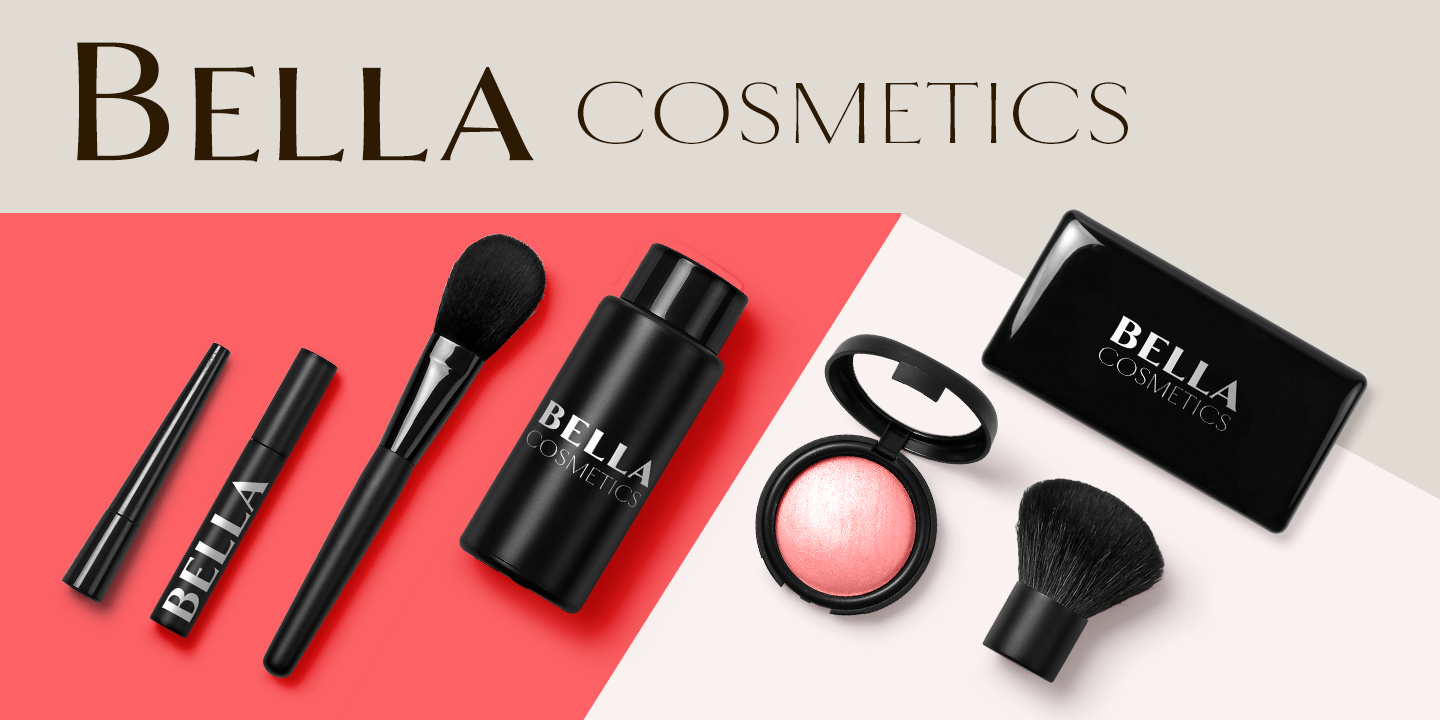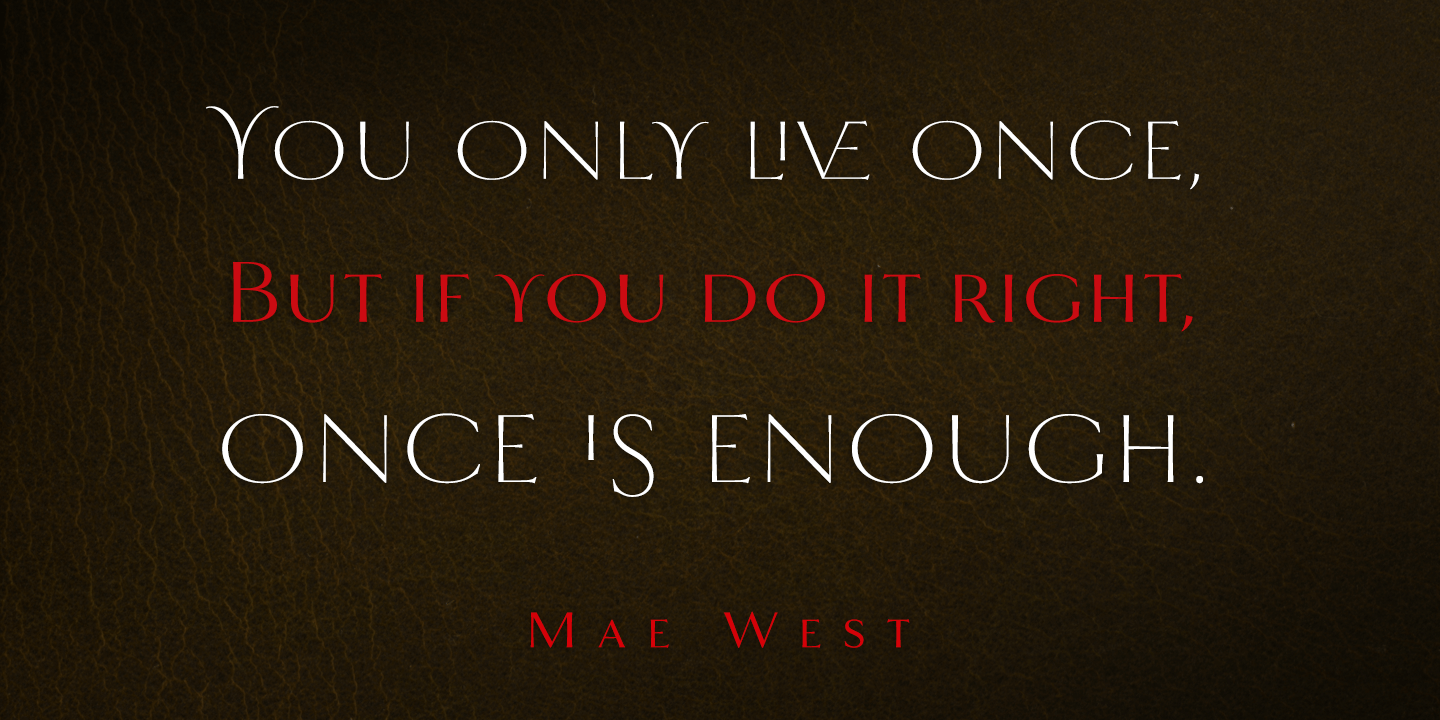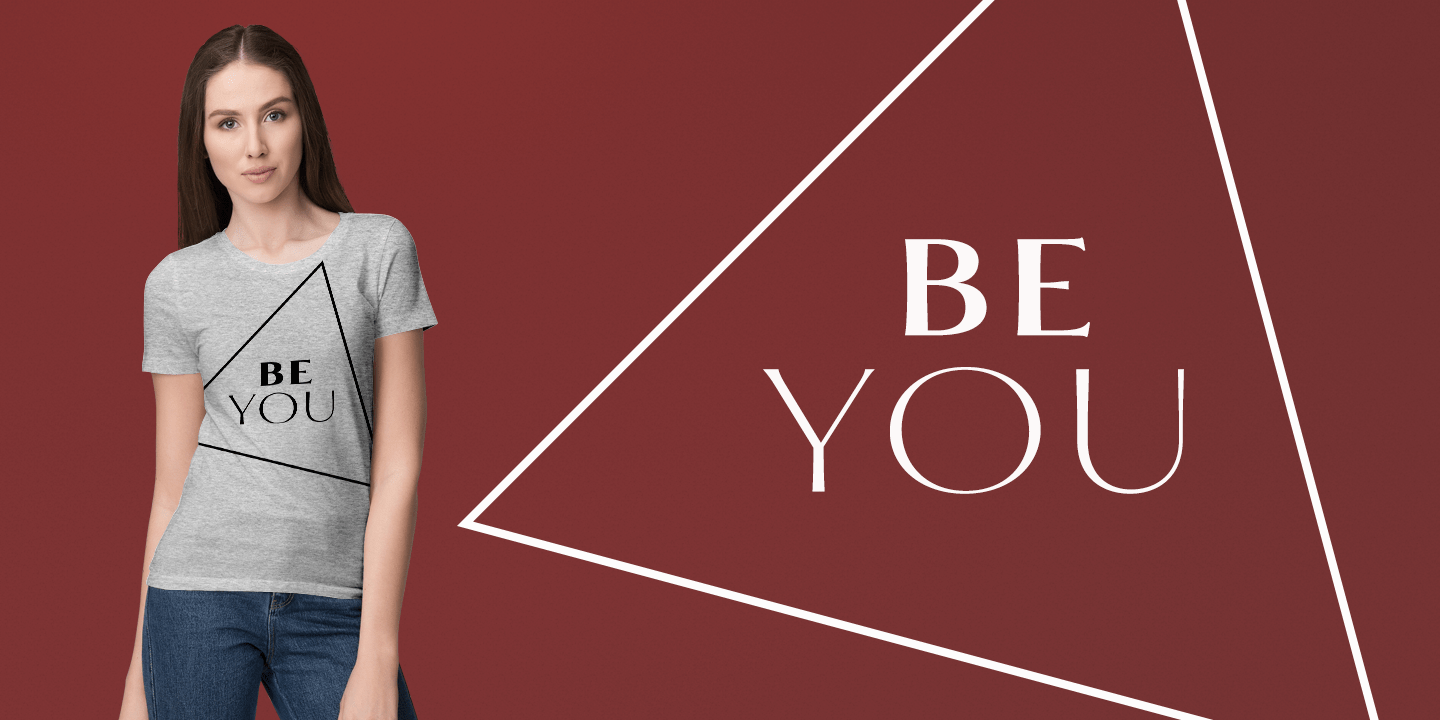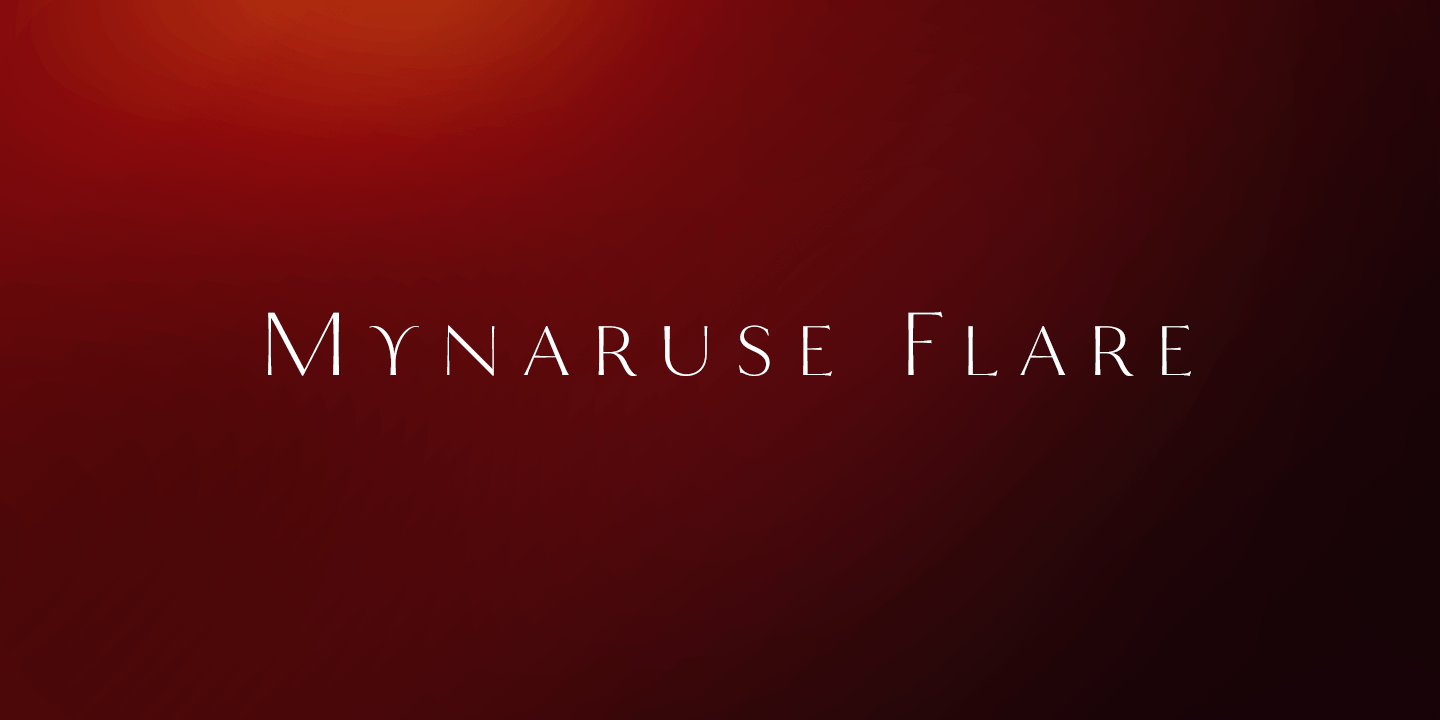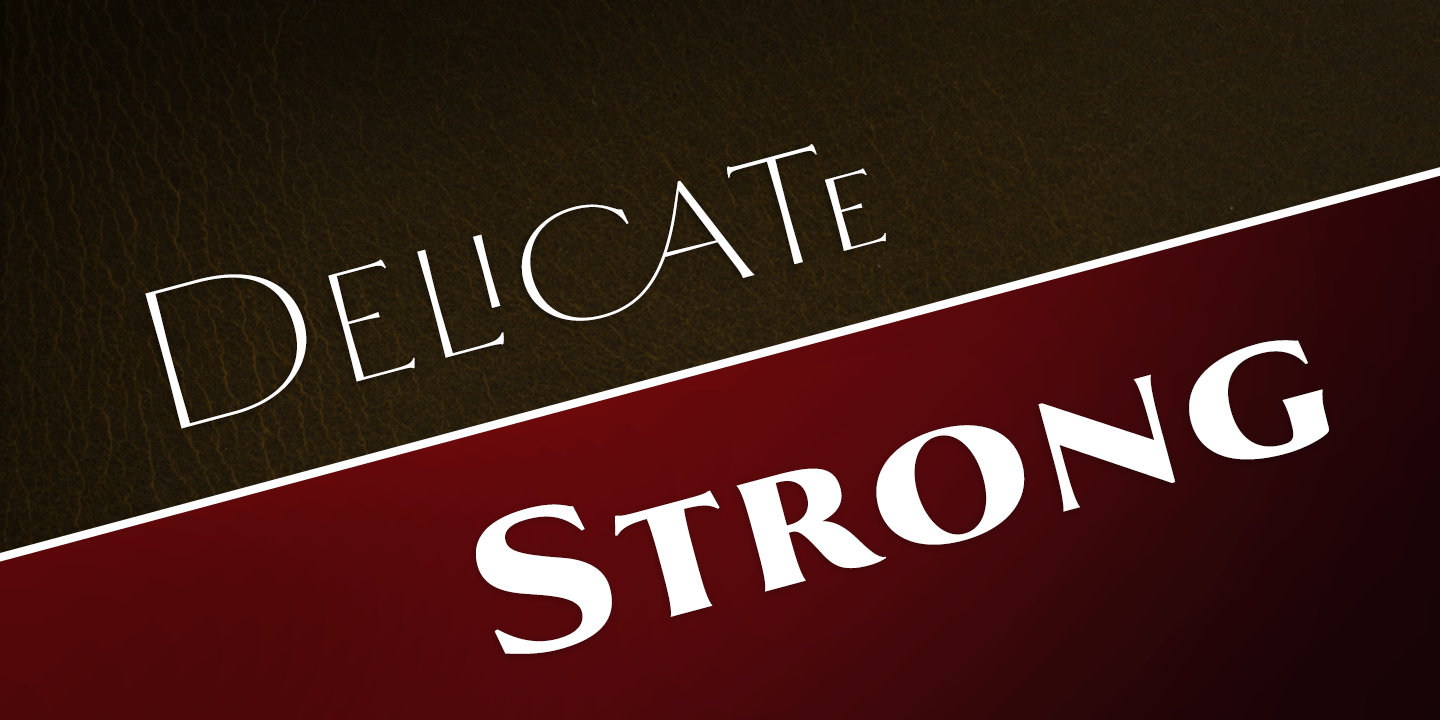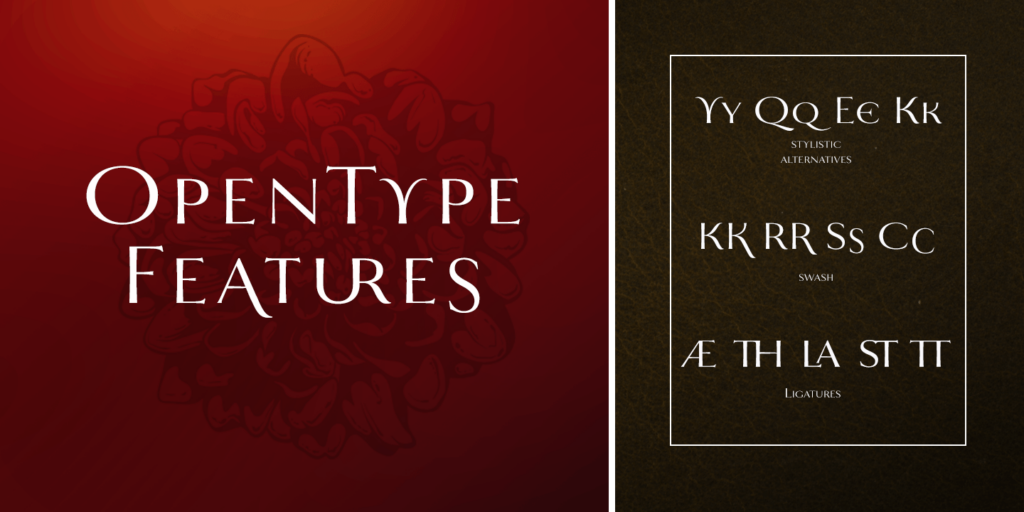
Mynaruse Flare
About Mynaruse Flare
Mynaruse Flare is a new version of the Mynaruse superfamily. This version eliminates the elongated serifs of the original, and instead stems end with a flare. You will find that the thinner weights are delicate and beautiful, while the heavier weights…